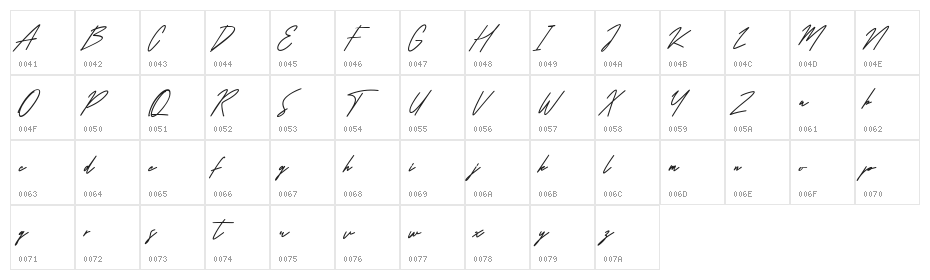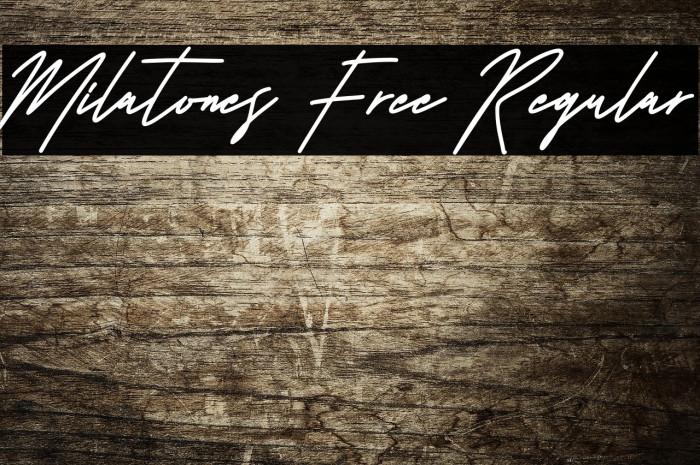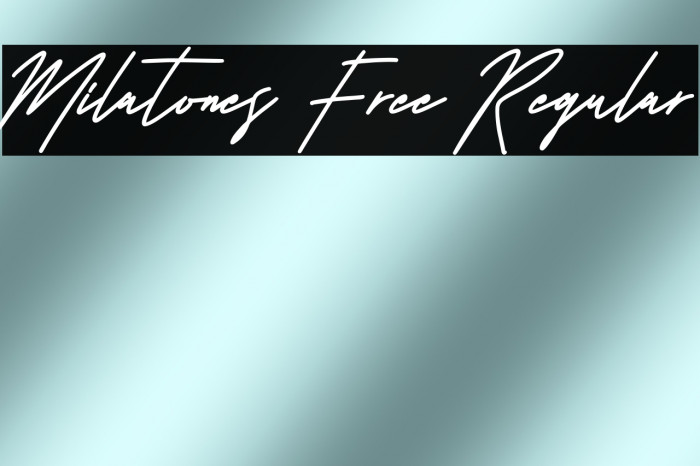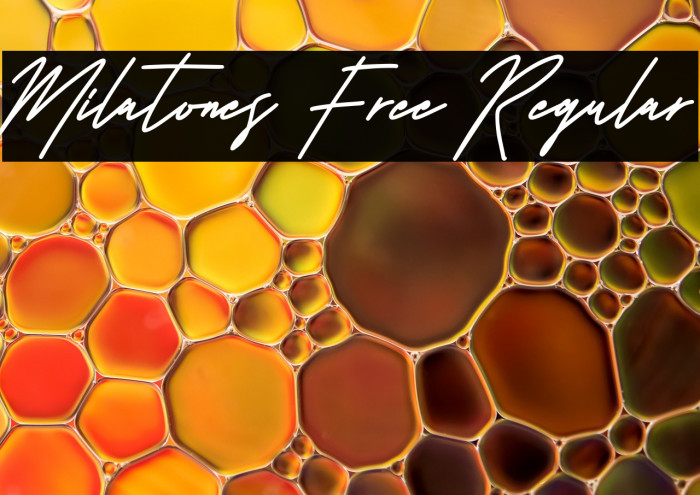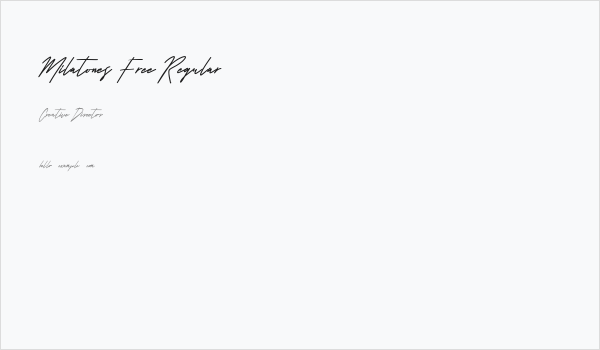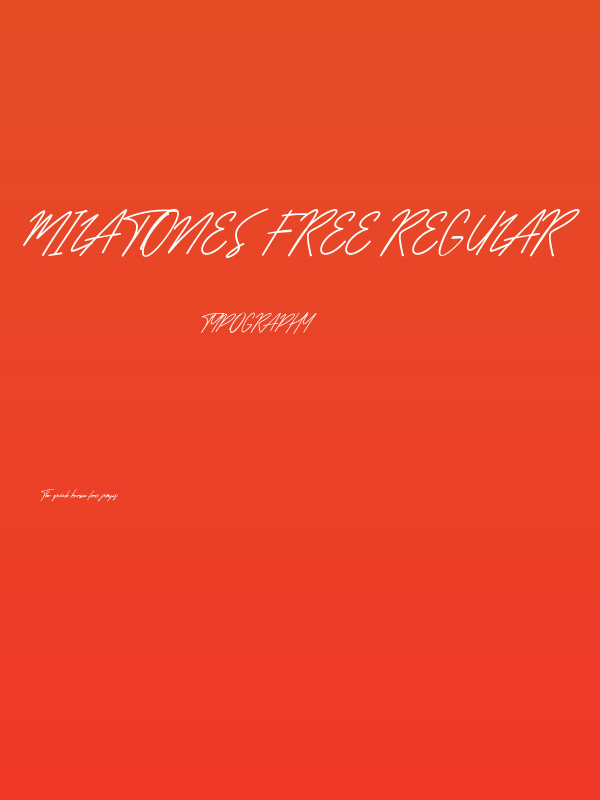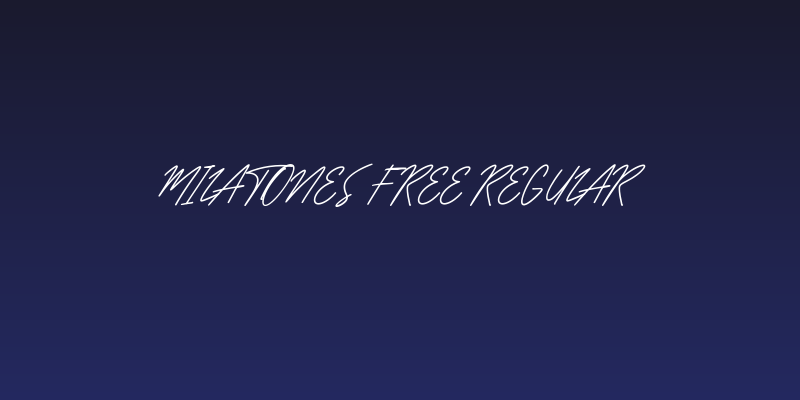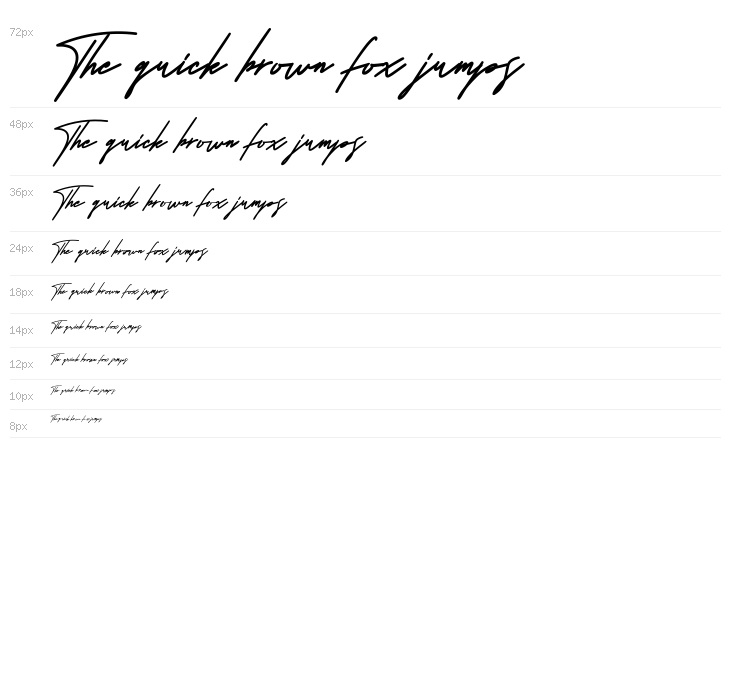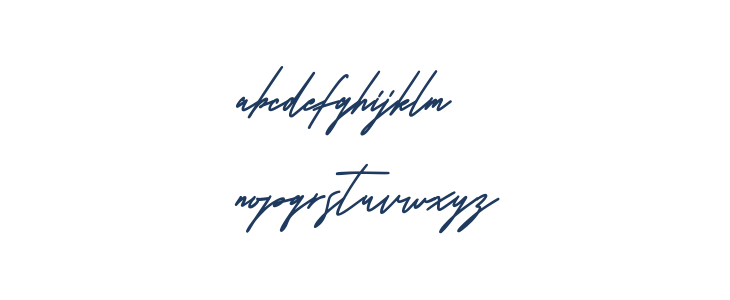
Milatones Free Regular Font
Milatones Free Regular Description
This font features a dynamic and expressive handwritten style, characterized by its fluid and cursive letterforms. The strokes are smooth and connected, giving it a natural and personal touch. The uppercase letters are bold and slightly slanted, while the lowercase letters maintain a consistent flow, enhancing the font's legibility. The overall design is modern yet retains a classic handwritten charm, making it suitable for a variety of creative applications. The font's unique style is perfect for projects that require a personal and artistic flair.